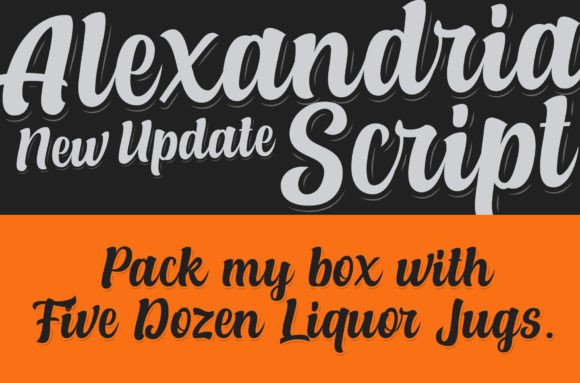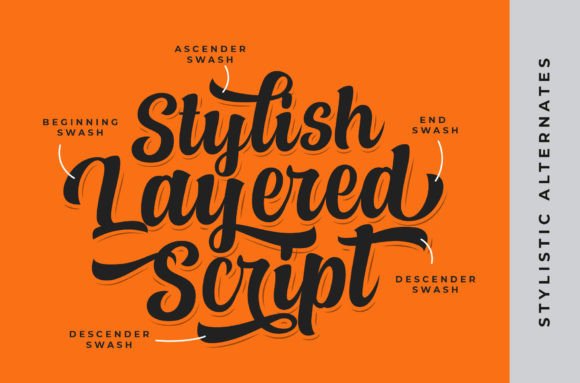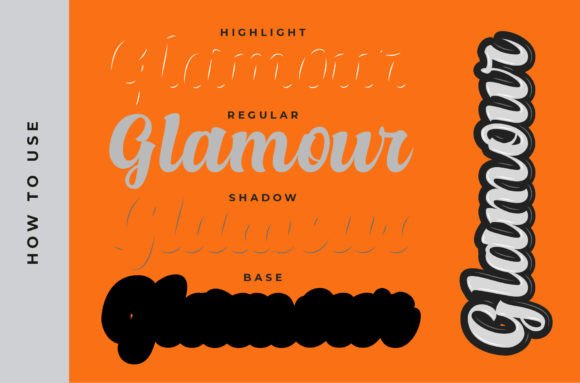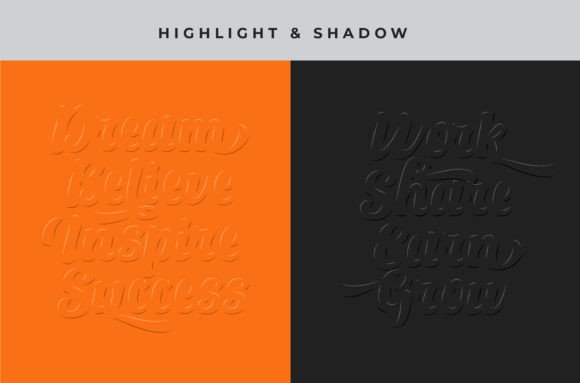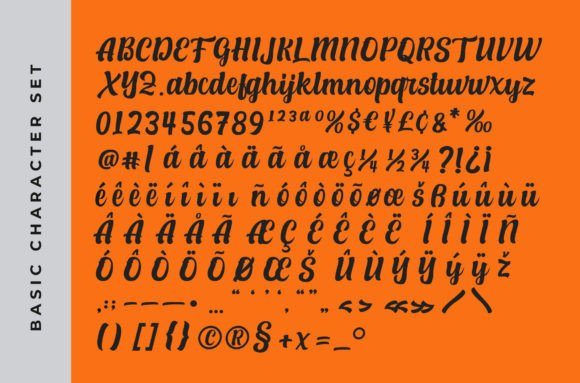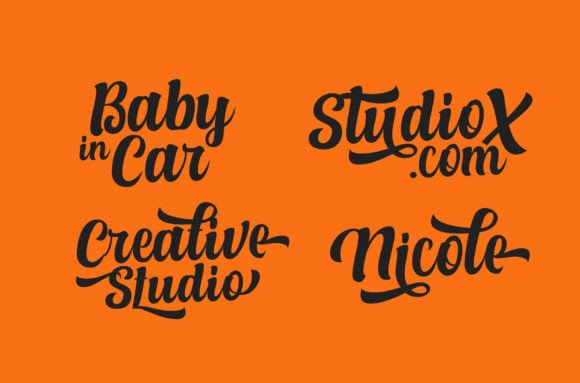
The Alexandria Script Font: A Designer’s New Best Friend
I still remember the last time I was working on a wedding invitation project, and I just couldn’t seem to find the perfect font. My client wanted something elegant, yet playful; something that would make their special day stand out. That’s when I stumbled upon the Alexandria Script Font. It was love at first sight! 💕
This cool and unique script font has since become a staple in my design toolkit, and I’m excited to share my experience with you. Whether you’re a designer, crafter, or creative hobbyist, you’ll love the versatility and charm that Alexandria Script brings to the table.
• ✨ Elegant and sophisticated, yet approachable and friendly
• 💫 Beautifully crafted with a clear handwritten touch
• 🎨 Highly versatile, perfect for a wide range of design projects
⚠️ While Alexandria Script is an amazing font, it’s not without its quirks. For example, some users have reported issues with kerning, particularly when using the font at very large or very small sizes. However, these issues are relatively rare and can often be easily fixed with a bit of manual adjustment.
🤔 Another thing to keep in mind is that, like many script fonts, Alexandria Script can be a bit overused. Make sure to balance it with other design elements to avoid overwhelming your project.
4. Experiment with OpenType features, glyphs, and stylistic alternates to add visual interest to your design
Even in Microsoft Word, Alexandria Script can add a touch of elegance to your documents.
The Story Behind Alexandria Script
While the true story behind Alexandria Script may be unknown, it’s easy to imagine a talented designer with a passion for handwriting and typography. Perhaps they were inspired by the ancient city of Alexandria, with its rich history and cultural heritage. Whatever the inspiration, the result is a font that’s both beautiful and functional.
A: The best way to use Alexandria Script is to pair it with a clean, simple font to create visual contrast. This will help your design stand out and make the most of the font’s elegant feel.